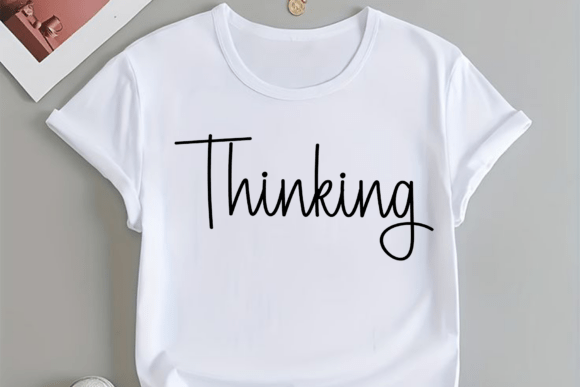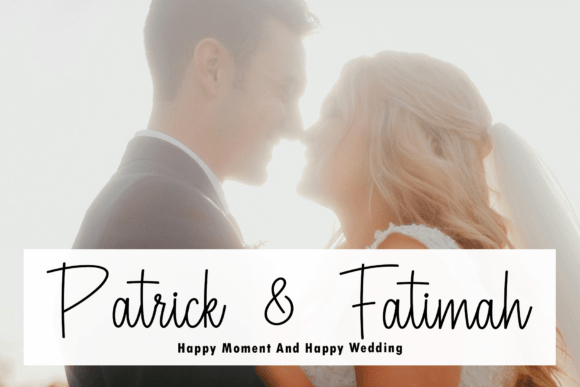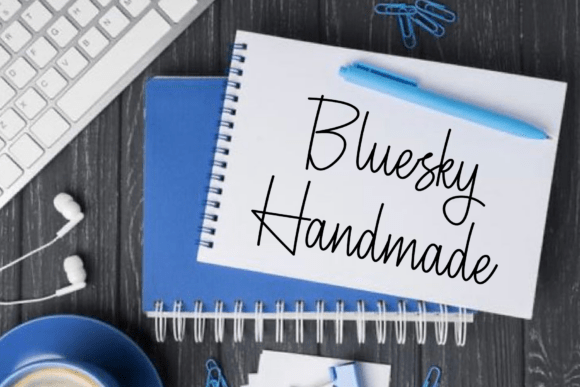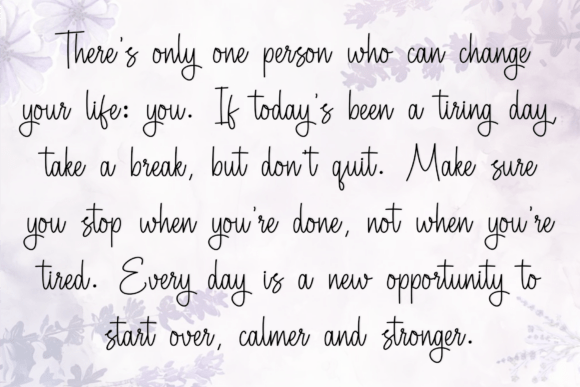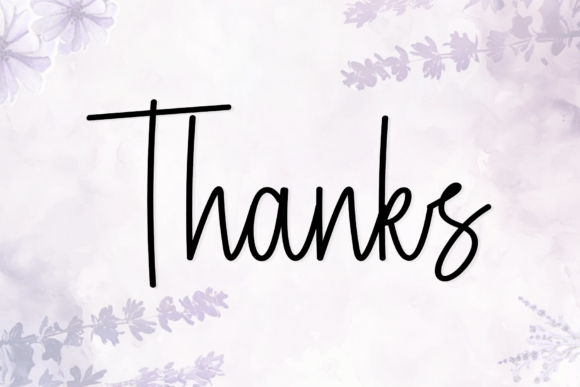
Bellinda Font: Elevate Your Design with Modern Elegance
In the world of typography, fonts play a crucial role in conveying the tone and personality of a brand or design. For those seeking to add a touch of sophistication and luxury to their work, the Bellinda font is an excellent choice. This stunning handwritten script font embodies modern elegance through its fluid, signature-like motion, making it perfect for high-end designs.
The Characteristics of Bellinda Font
Bellinda is a “new style” handwritten script font that boasts a delicate balance of tall ascenders and graceful, sweeping loops. This unique combination creates a rhythmic and sophisticated visual flow, setting it apart from other fonts. The fluid motion of Bellinda’s letters gives it a signature-like quality, evoking the feeling of a personal, handwritten note.
Perfect for Luxury Branding and High-End Designs
Bellinda font is ideal for luxury branding, signature logos, wedding stationery, and high-end editorial content. Its elegant and sophisticated appearance makes it an excellent choice for designers and crafters looking to add a touch of class to their work. Whether you’re creating a logo, invitation, or editorial piece, Bellinda brings an unmistakable sense of refinement and poise.
Key Features of Bellinda Font
- Fluid, signature-like motion: Bellinda’s letters flow smoothly, creating a sense of movement and elegance.
- Delicate balance of tall ascenders and sweeping loops: This unique combination creates a rhythmic and sophisticated visual flow.
- Perfect for luxury branding and high-end designs: Bellinda’s elegant appearance makes it ideal for designs that require a touch of sophistication.
- Suitable for a range of applications: From signature logos and wedding stationery to high-end editorial content, Bellinda is a versatile font that can be used in various design projects.
Tips for Using Bellinda Font Effectively
To get the most out of Bellinda font, consider the following tips:
- Use it sparingly: Bellinda’s elegance can be overwhelming if overused. Use it as an accent font to add a touch of sophistication to your design.
- Pair it with a neutral font: Combine Bellinda with a clean, neutral font to create a striking contrast and add visual interest to your design.
- Experiment with different sizes and colors: Bellinda’s versatility allows it to be used in various sizes and colors. Experiment to find the perfect combination for your design.
Why Designers and Crafters Love Bellinda Font
Bellinda font has become a favorite among designers and crafters due to its unique blend of elegance and sophistication. Here are a few reasons why:
- Unparalleled elegance: Bellinda’s fluid motion and delicate balance of ascenders and loops create a truly elegant appearance.
- Versatility: Bellinda can be used in a range of design projects, from luxury branding to wedding stationery.
- Easy to read: Despite its elegant appearance, Bellinda is surprisingly easy to read, making it perfect for body text and headlines.
In conclusion, the Bellinda font is an exceptional choice for designers and crafters seeking to add a touch of modern elegance to their work. Its fluid, signature-like motion, delicate balance of ascenders and loops, and versatility make it perfect for luxury branding, signature logos, wedding stationery, and high-end editorial content. By incorporating Bellinda into your design projects, you’ll be sure to create stunning, sophisticated pieces that leave a lasting impression.